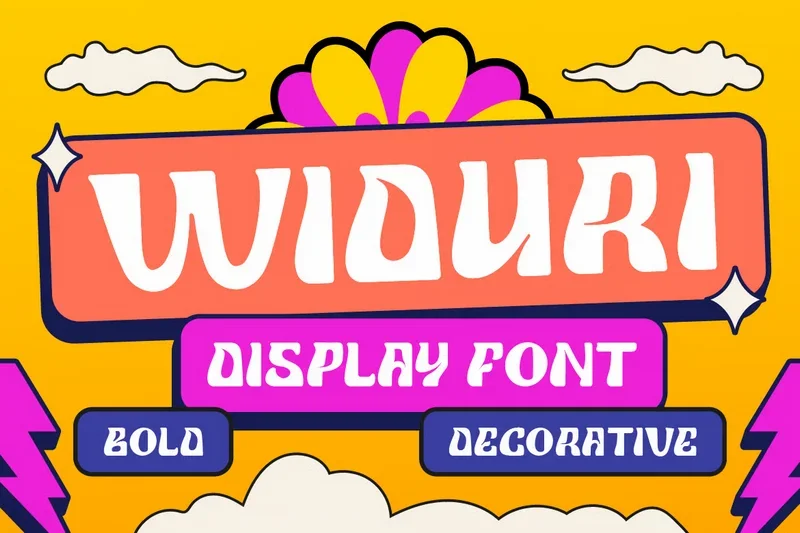
Widuri Display Font
Introducing Widuri, a bold retro display font full of groovy charm and playful energy. Inspired by 70s psychedelic posters and vintage signage, Widuri brings a fun and nostalgic twist to your designs. Its thick curves, decorative details, and vibrant personality make it perfect for standout headlines, festival posters, music artwork, branding, packaging, and social media graphics.
Whether you’re designing a music festival flyer, a feel-good quote, or a retro-style logo, Widuri adds that joyful, expressive character your project needs. Let your creativity shine with a typeface that’s bold, funky, and full of positivity.
Uppercase & lowercase letters
Numbers & punctuation
Perfect for posters, logos, packaging, merchandise, and more
Great for: Retro design, funky branding, music and art events, 70s or 80s inspired visuals, playful product packaging, and creative campaigns that need a bold statement.